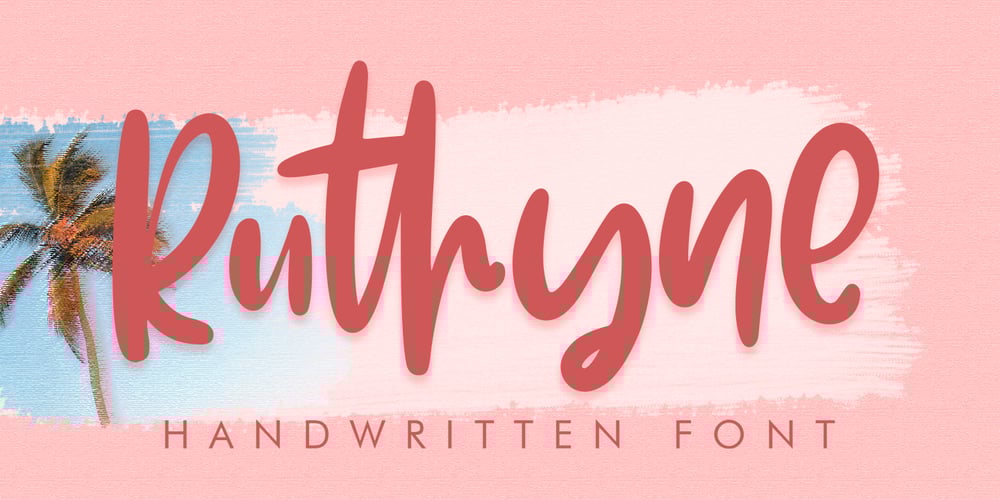
Ruthyne Font Family was designed by Dimas Prasetyo and published by DM Studio. Ruthyne contains 1 styles and family package options. The Ruthyne Handwritten Font is a captivating and versatile typeface that embodies the beauty and warmth of human handwriting. With its flowing strokes and authentic character, this font adds a personal and elegant touch to your designs, making it perfect for greeting cards, invitations, branding, and various creative projects.Features:1. Authentic Handwritten Style: The Ruthyne Font captures the authenticity and charm of natural handwriting. Its flowing strokes and genuine character lend an intimate and genuine feel to your text, making it suitable for projects that require a personal and human touch.2. Versatile Application: This font is versatile and well-suited for a wide range of design projects. Use it in greeting cards, invitations, social media graphics, branding materials, and more to add a touch of personal elegance to your designs.3. Uppercase and Lowercase Letters: The font includes both uppercase and lowercase letters, providing flexibility and creative freedom in your designs. Mix and match the cases to create visually appealing and balanced typography.4. Punctuation and Symbols: In addition to the alphabet, the Ruthyne Font includes a comprehensive set of punctuation marks, numerals, and common symbols. This ensures consistency and ease of use when incorporating the font into your design projects.5. Ligatures and Special Characters: The font offers a variety of ligatures and special characters that add character and uniqueness to your text. These unique glyphs create interesting connections between letters and decorative elements, allowing you to create personalized and visually appealing typography.6. Easy to Use: Installing and utilizing the Ruthyne Handwritten Font is user-friendly. It’s compatible with both Windows and Mac operating systems and seamlessly integrates into popular design software such as Adobe Photoshop, Illustrator, and InDesign. This ensures a smooth and efficient design workflow.Elevate your designs with the authentic and personal touch of the Ruthyne Handwritten Font. Let its flowing strokes and genuine character add a touch of elegance and human warmth to your greeting cards, invitations, and branding materials. Embrace the natural beauty of this font and create designs that resonate with sincerity and authenticity.